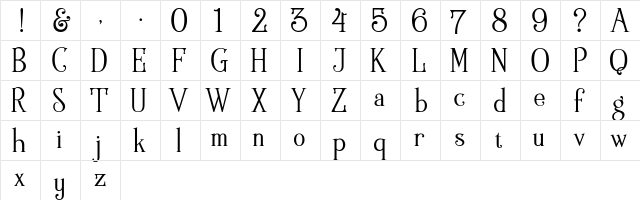
Wallington Pro (Demo) Pro
| Foundry | Zeune Ink Foundry |
| Designer | Sandi Dez |
Design Context for Wallington Pro (Demo) Typeface
Wallington Pro (Demo) offers clean, dependable letterforms without strong stylistic allegiance, making it a practical choice for designers who need flexibility.